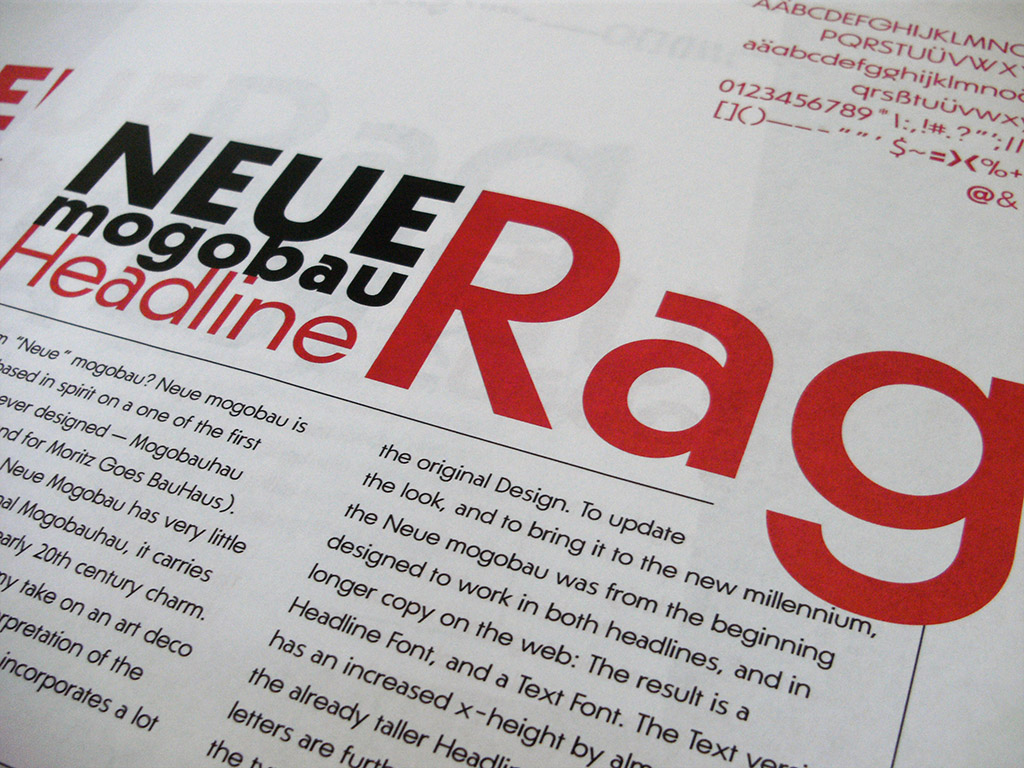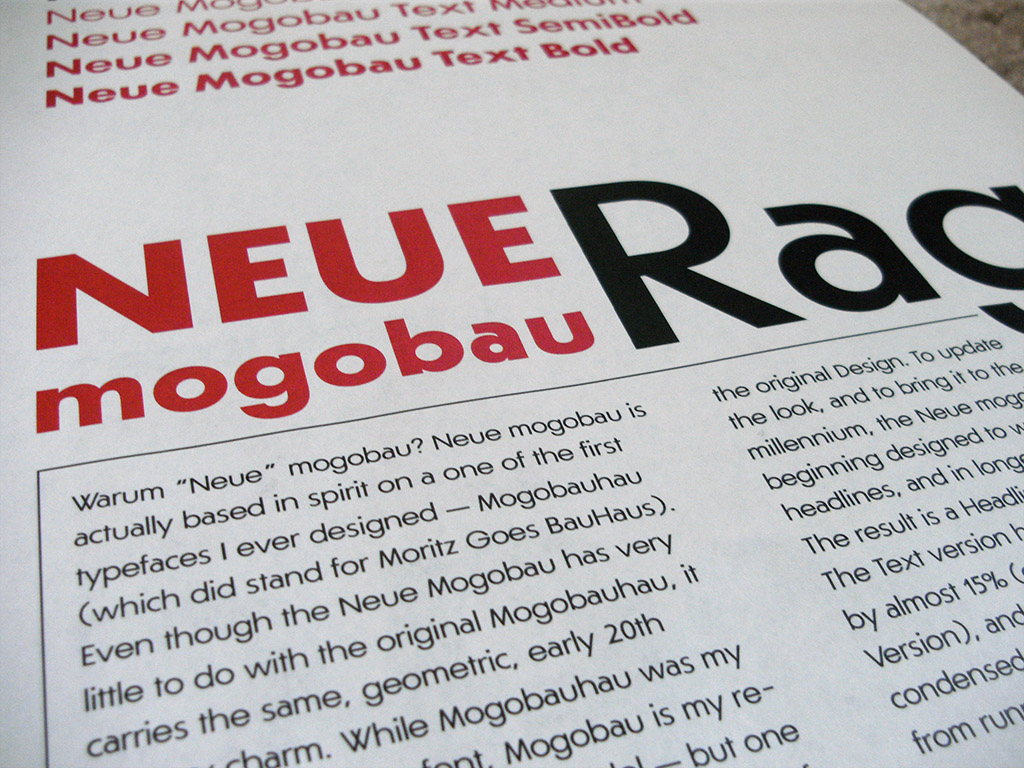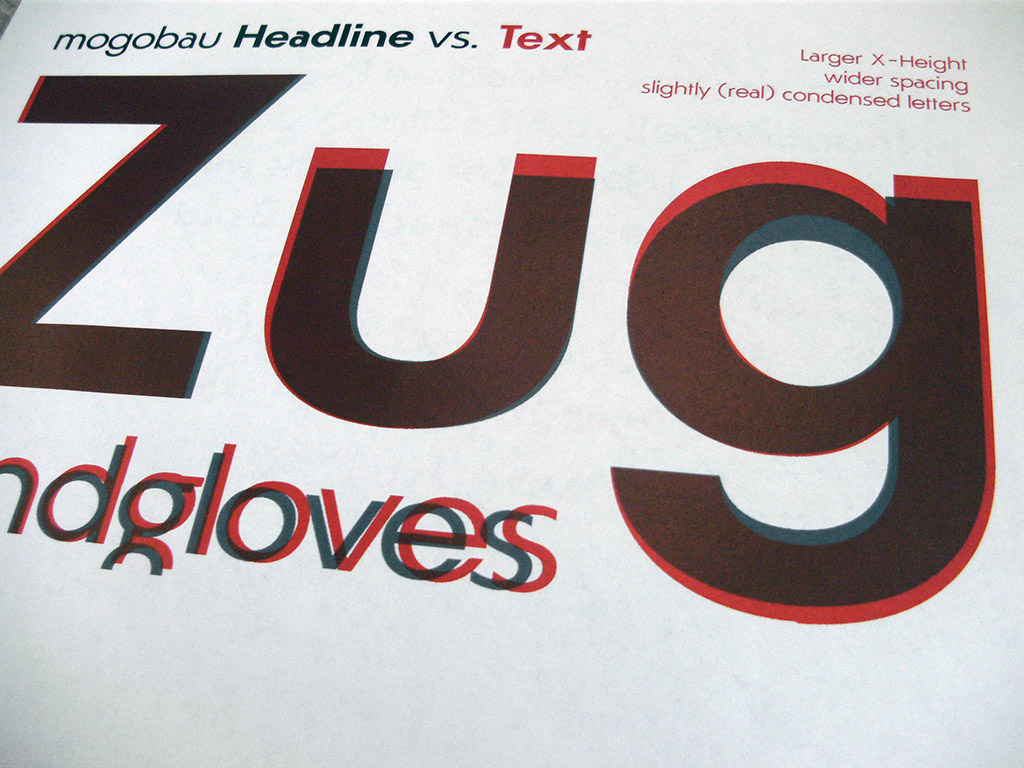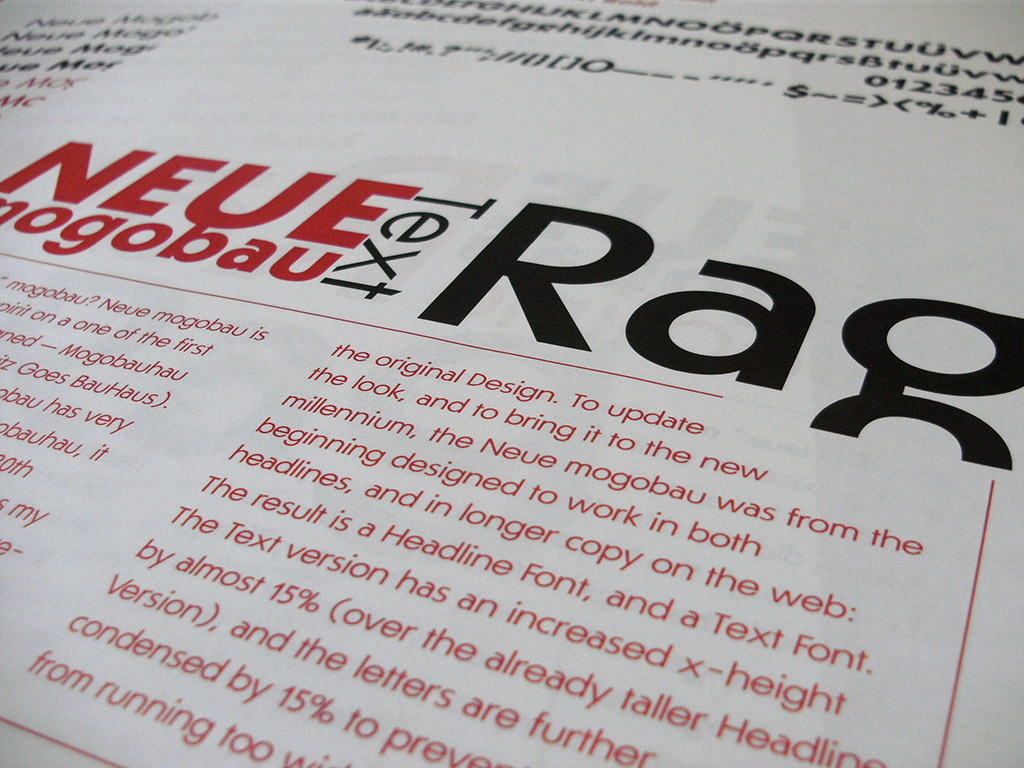
Neue Mogobau
Typeface Created July 2015, last updated 01 September 2021 Neue mogobau is a typeface based on one of my first fonts, Mogobauhau (which stood for Moritz Goes BauHaus). Even though the Neue Mogobau has very little to do with the original Mogobauhau, it carries the same, geometric, early 20th century charm. (read more here)
Picture of Neue Mogobau Headline Specimen
Two distinct Typefaces:
To update the look, and to bring it to the new millennium, the Neue mogobau was from the beginning designed to work in both headlines, and in longer copy on the web.
The results are a Headline Font, and a Text Font.
Neue Mogobau Headline vs. Text
The Text version has an increased x-height by almost 15% (over the already taller Headline Version), and the letters are further condensed by 15% to prevent the typeface from running too wide.
Neue Mogobau Text